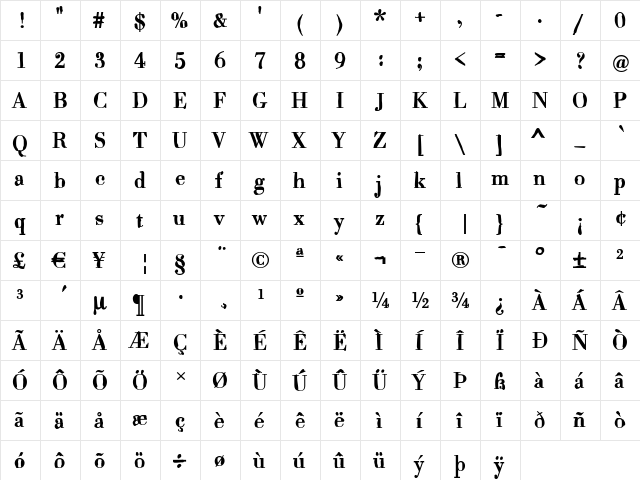
ScribbleDoni Bold
Design Context for ScribbleDoni Typeface
ScribbleDoni is a composed and adaptable typeface that performs quietly and consistently across a wide range of design contexts. Its bold stroke weight gives it real presence on the page.